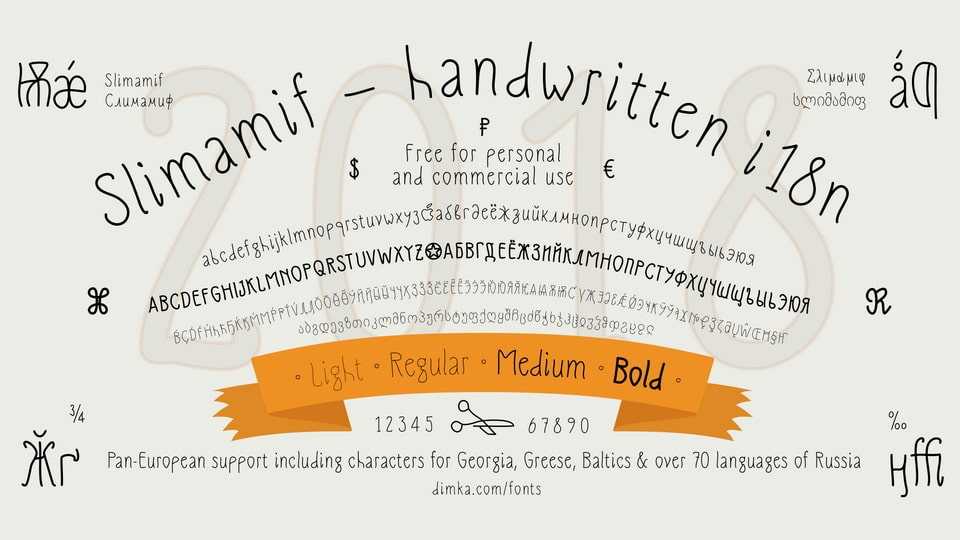
Download Slimamif font, a thin and elegantly natural multilingual typeface, stylistically something between handwriting and Art Nouveau.
Designer: Dimka